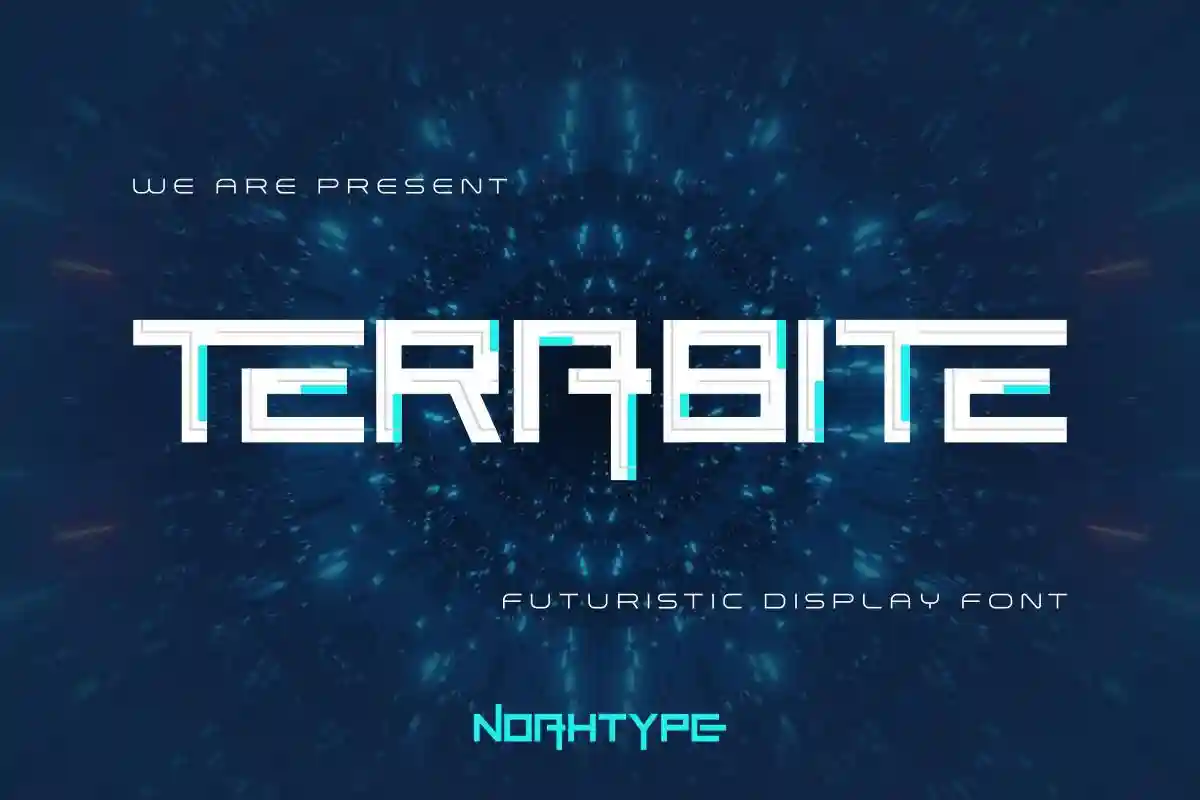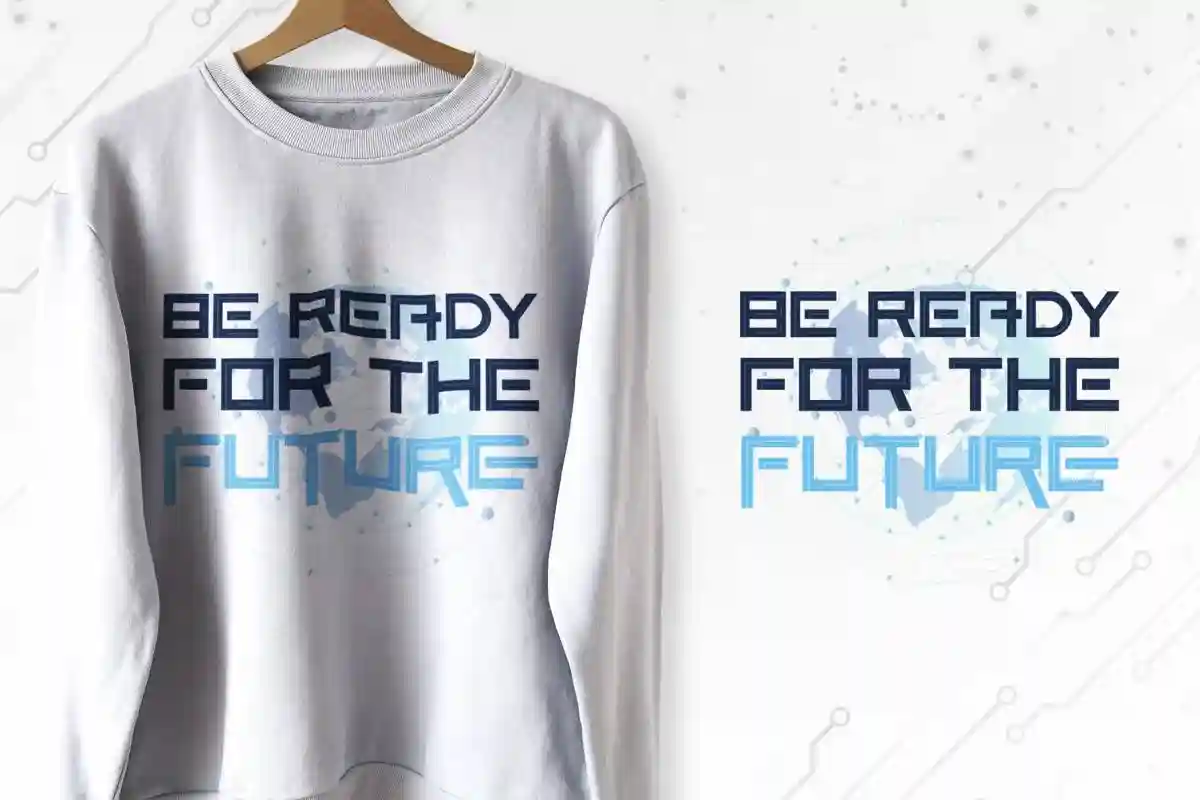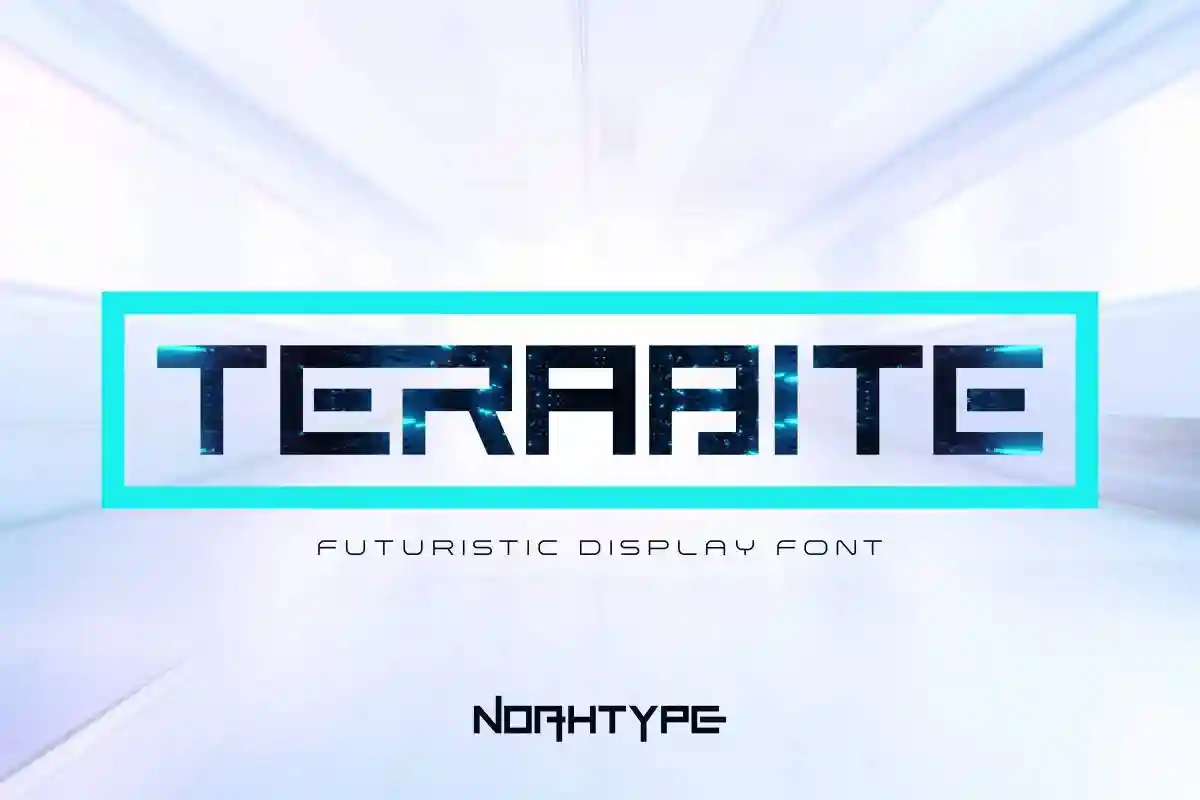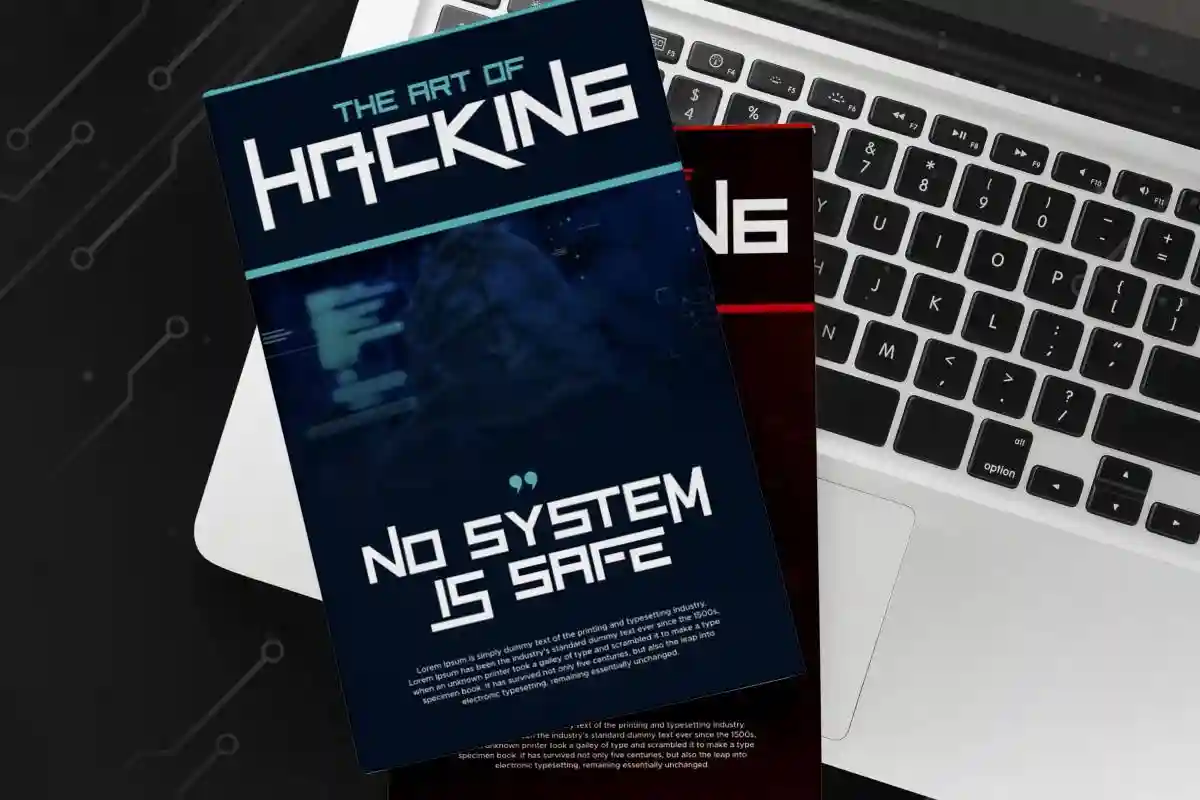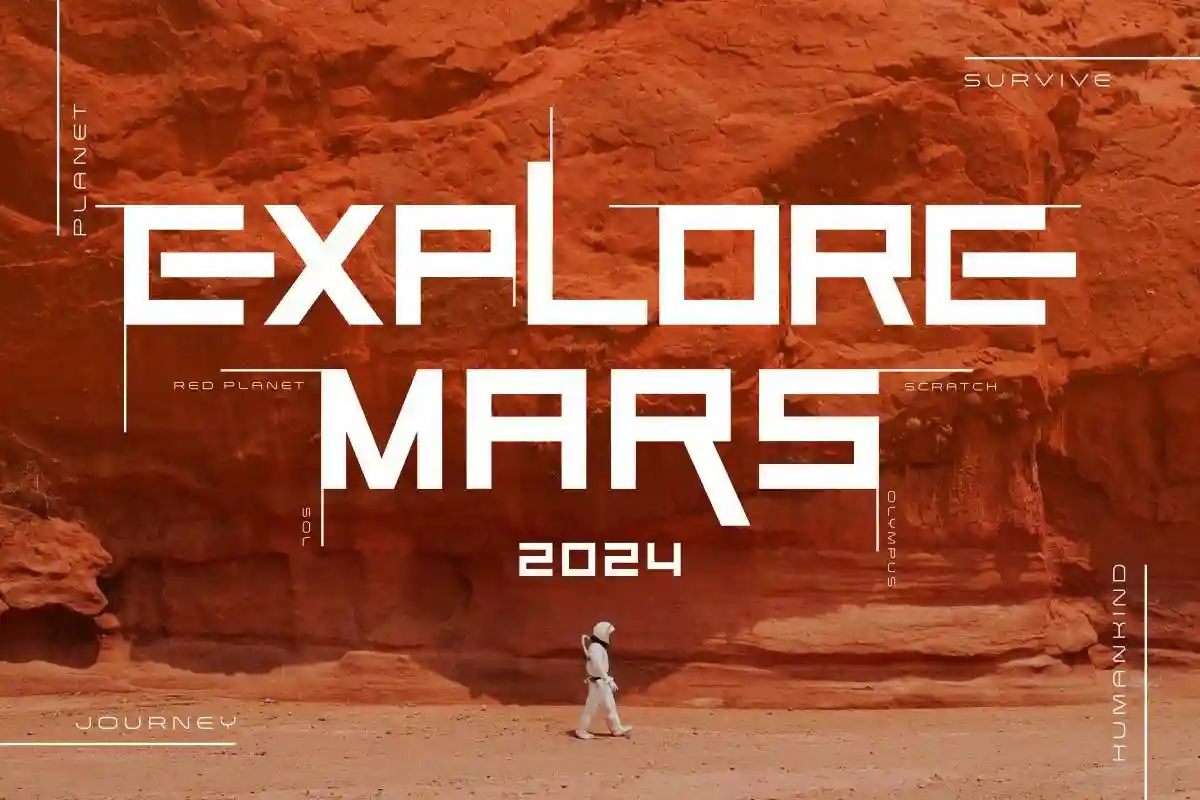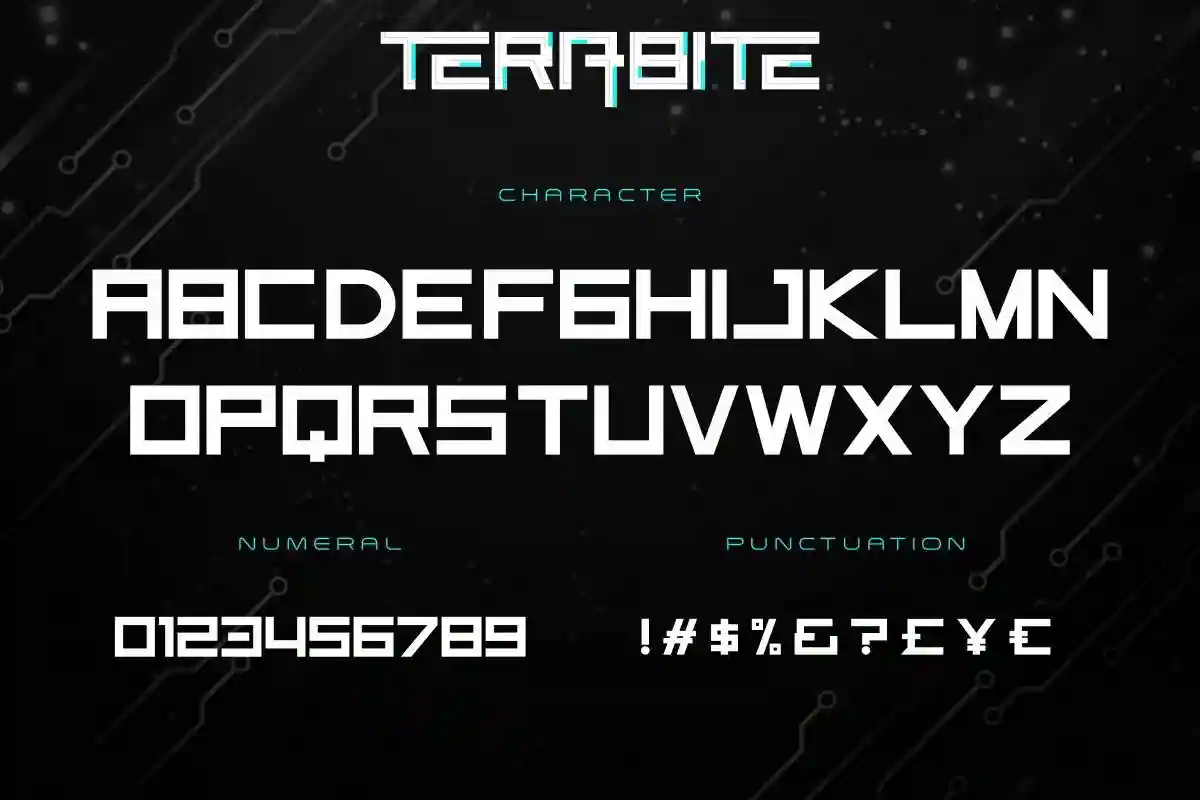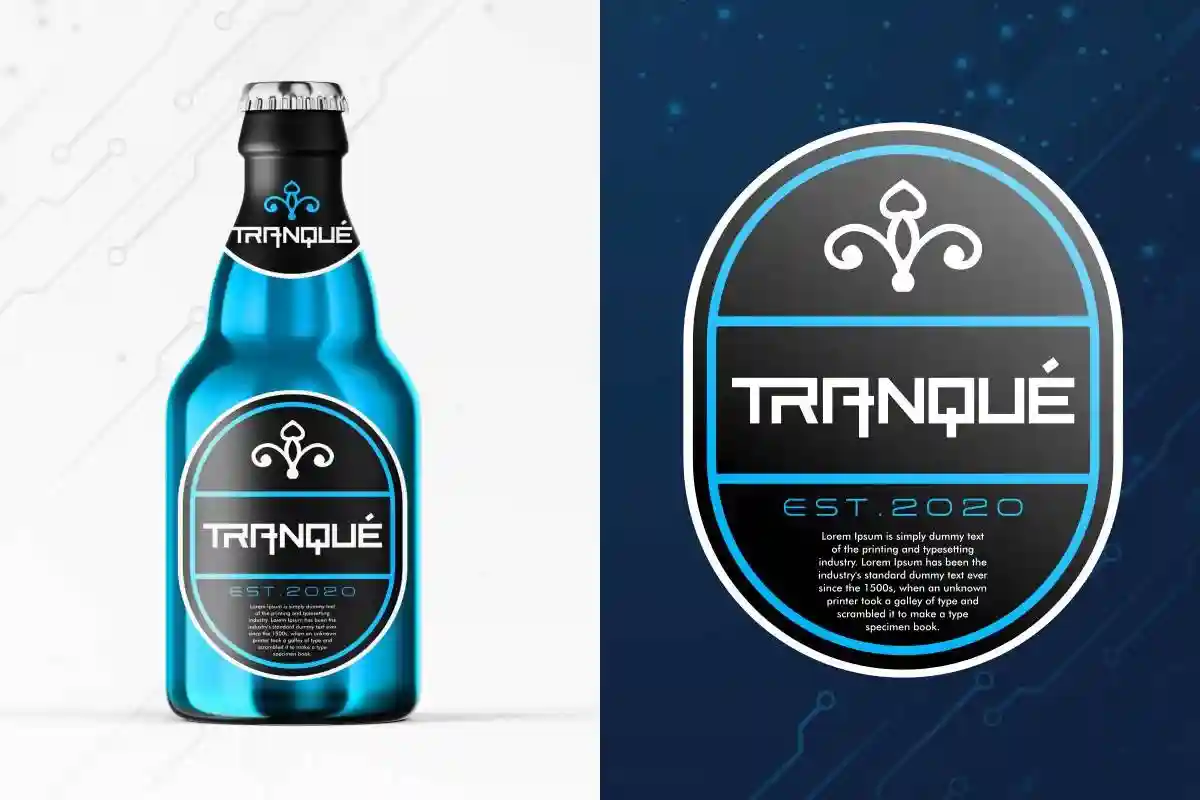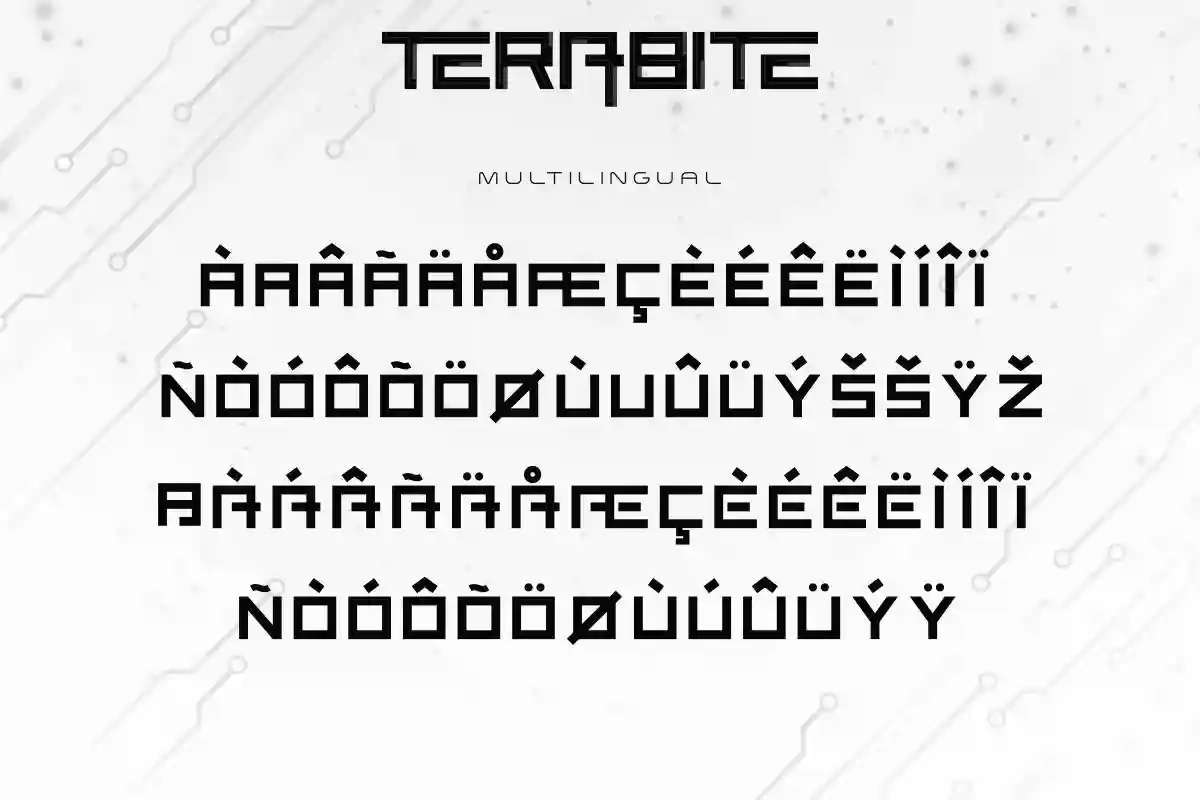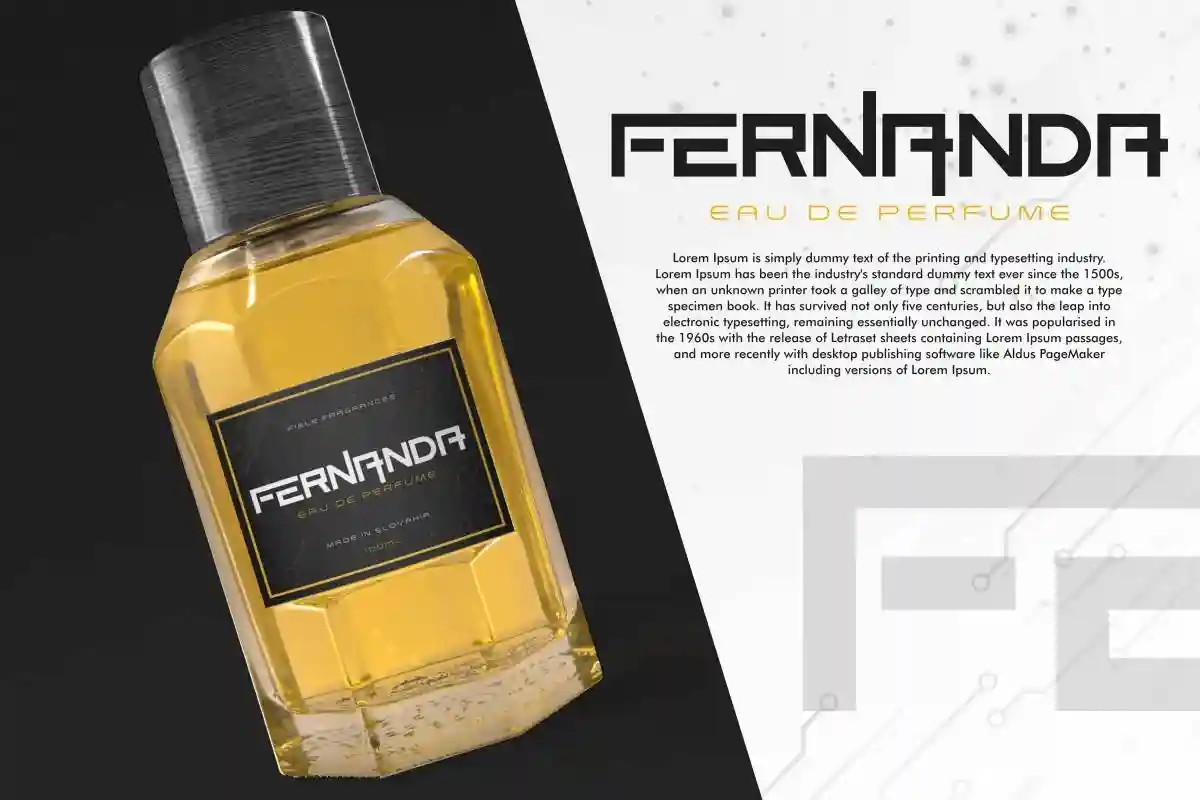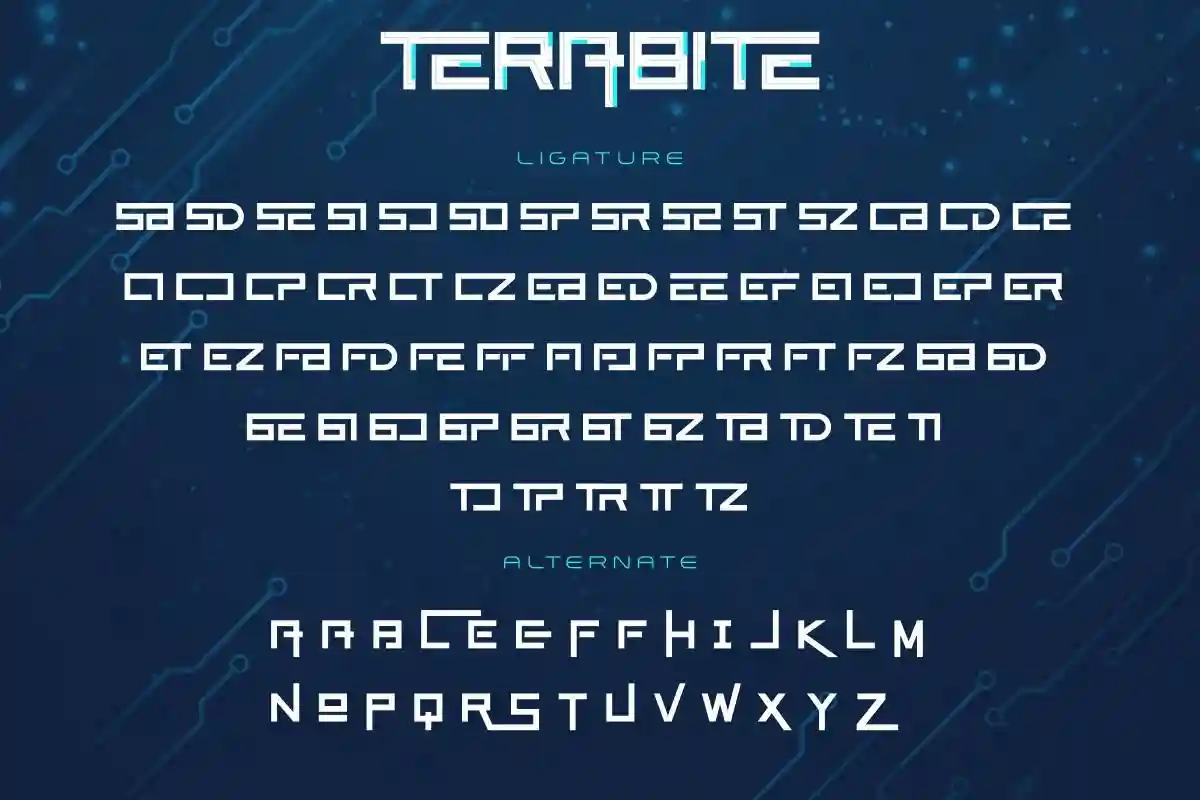
Terabite is a special futuristic sans serif display font with stunning style and alternative characters. The font was inspired from aerospace technology, astronaut, speed, computer glyphs and startup poster. It has a unique style that will bring the special effect to the design. It will works for games, technology, events, spaceship and any modern things. Terabite includes full set of Uppercase and Lowercase Basic Characters, Numerals and Punctuation. The font is perfect for many projects, headlines, logos, poster, tittle, products, etc
Why Choose Terabite?
• Bold futuristic style
• Perfect for headlines & display use
• Works great for tech, space & gaming themes
• Supports multilingual characters